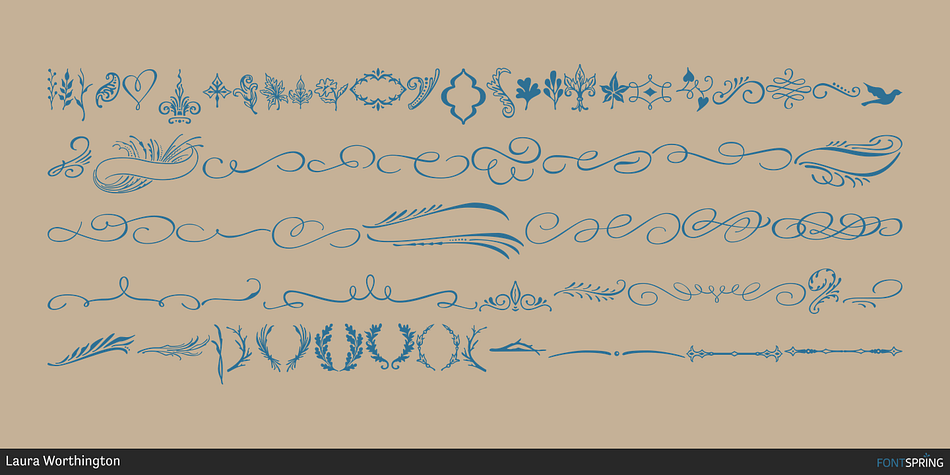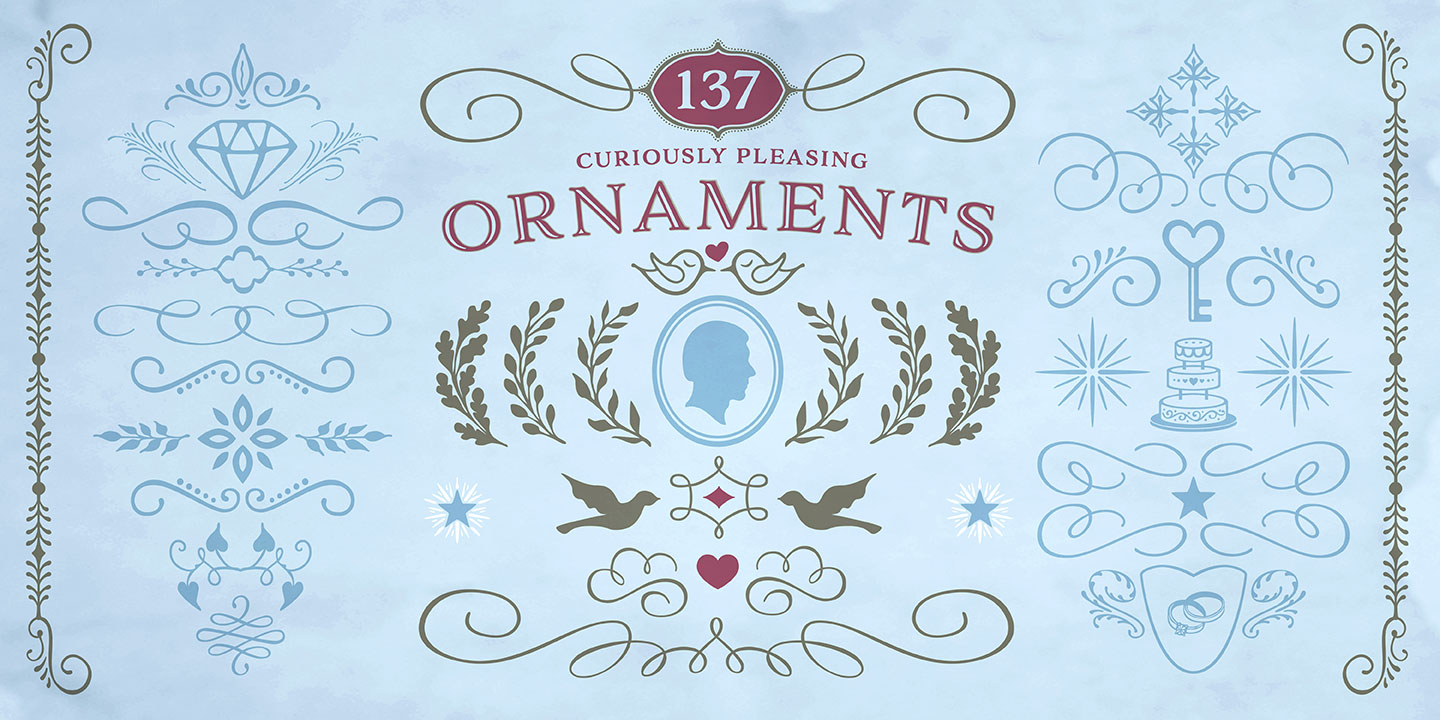
Designed by Laura Worthington, Adorn Ornaments Smooth is a dingbat font family published by Laura Worthington.
Adorn Ornaments Smooth Regular
Like the original Adorn family on which it’s based, Adorn Smooth provides a suite of distinctive typeface designs designed to complement each other rather than match exactly. Adorn Smooth revisits 6 faces from Adorn — Pomander, Serif, Slab Serif, Engraved, Condensed, and script Catchwords; plus ornaments, banners, and frames — in smooth, un-textured versions.
As with Adorn, Adorn Smooth provides a disparate but harmonious typographic toolkit for creating wedding invitations, event posters, book jackets, or packaging.